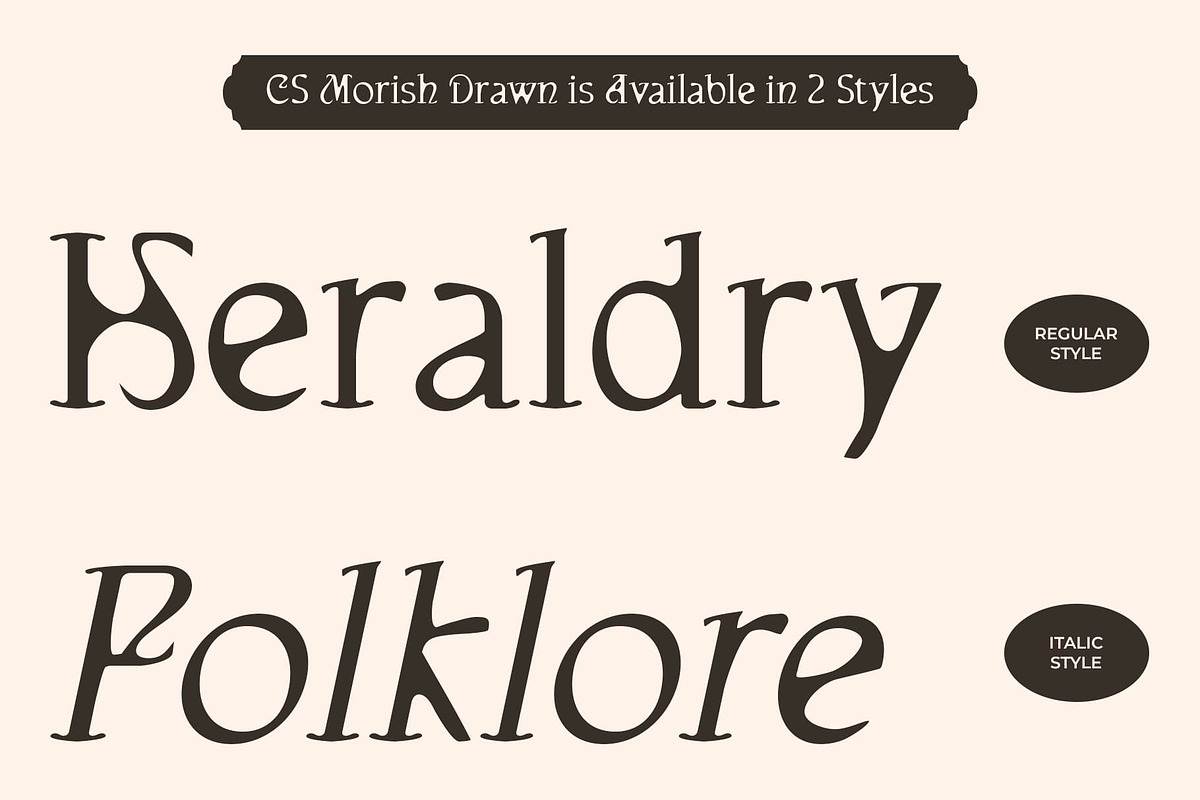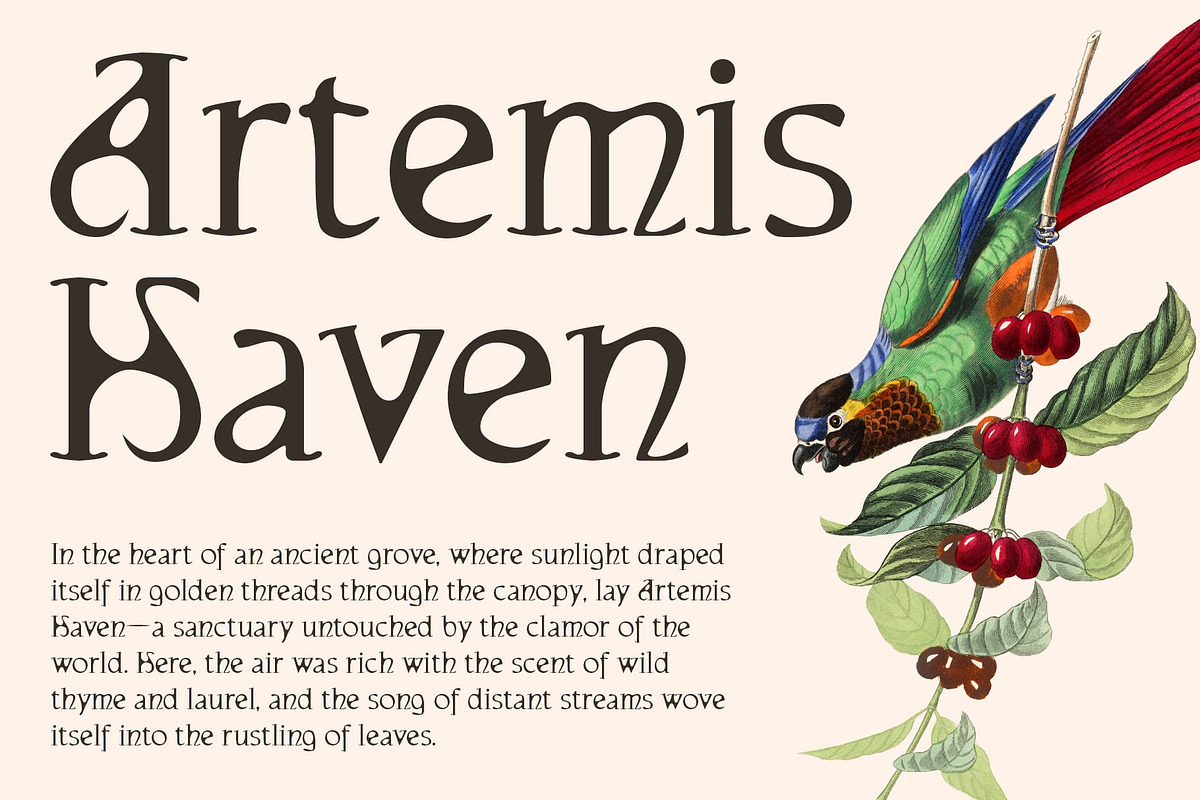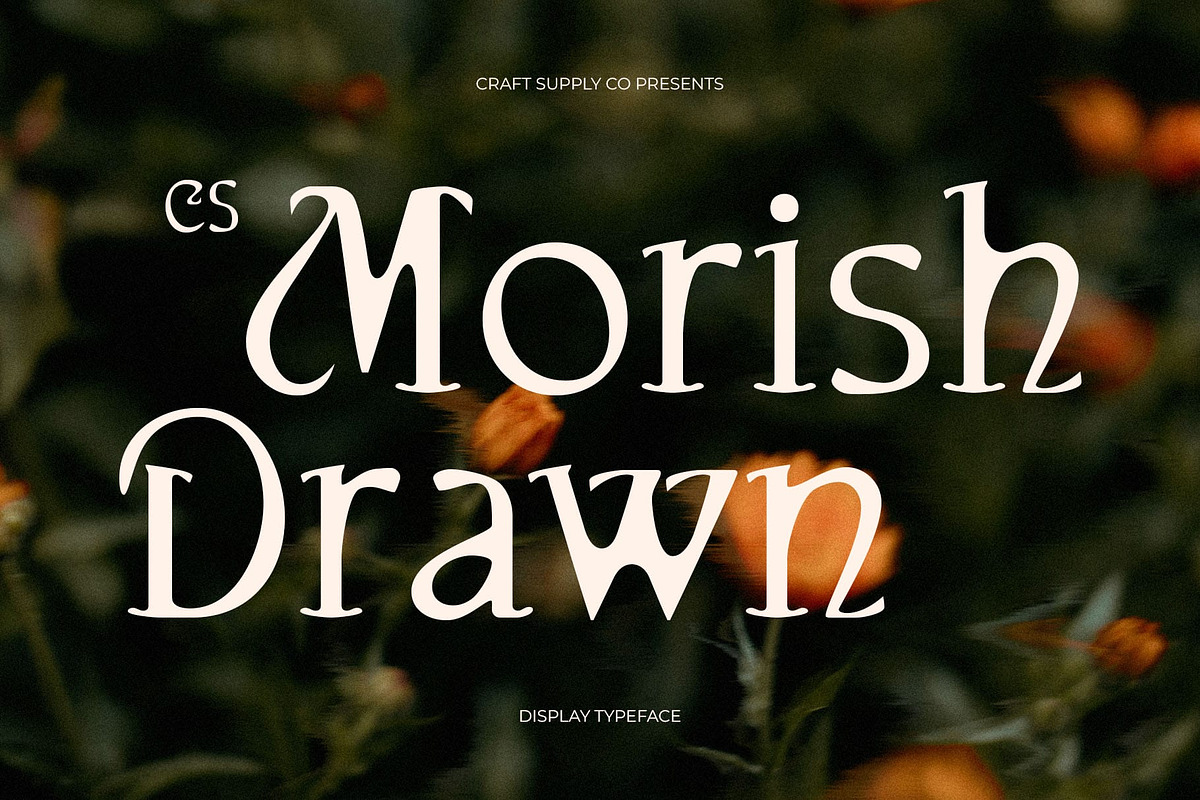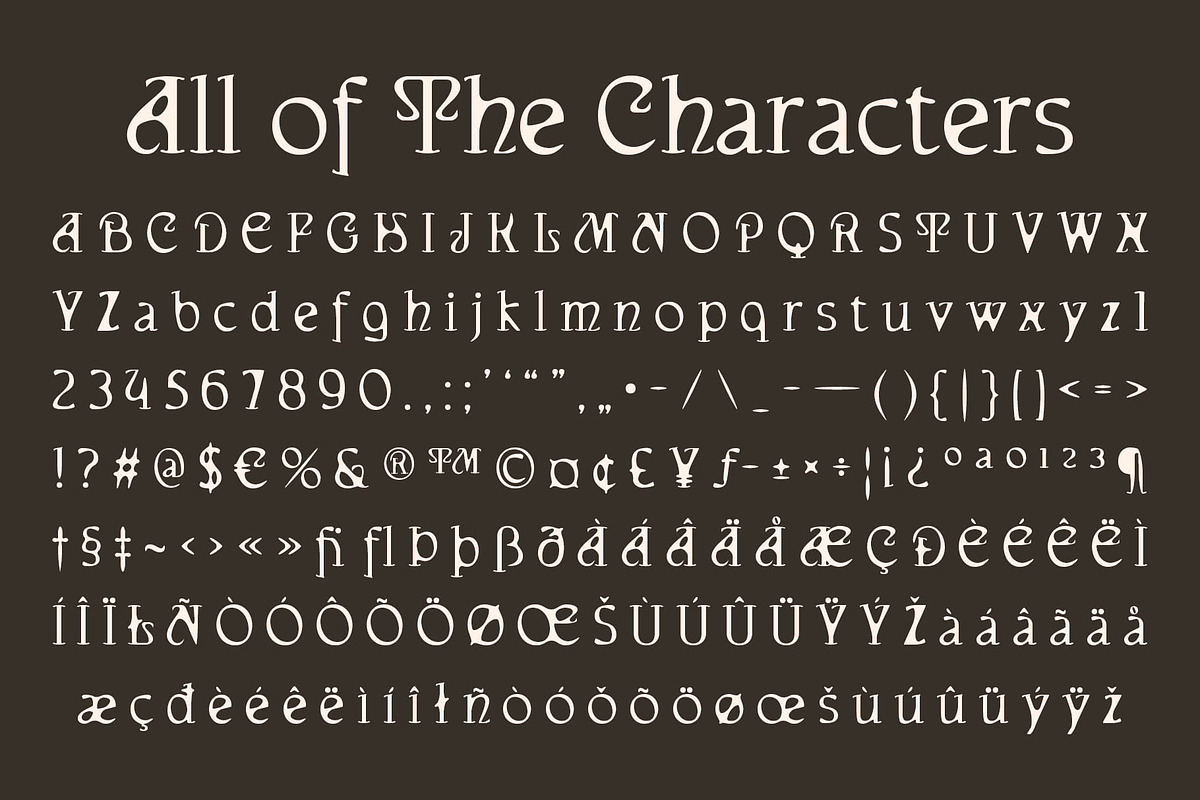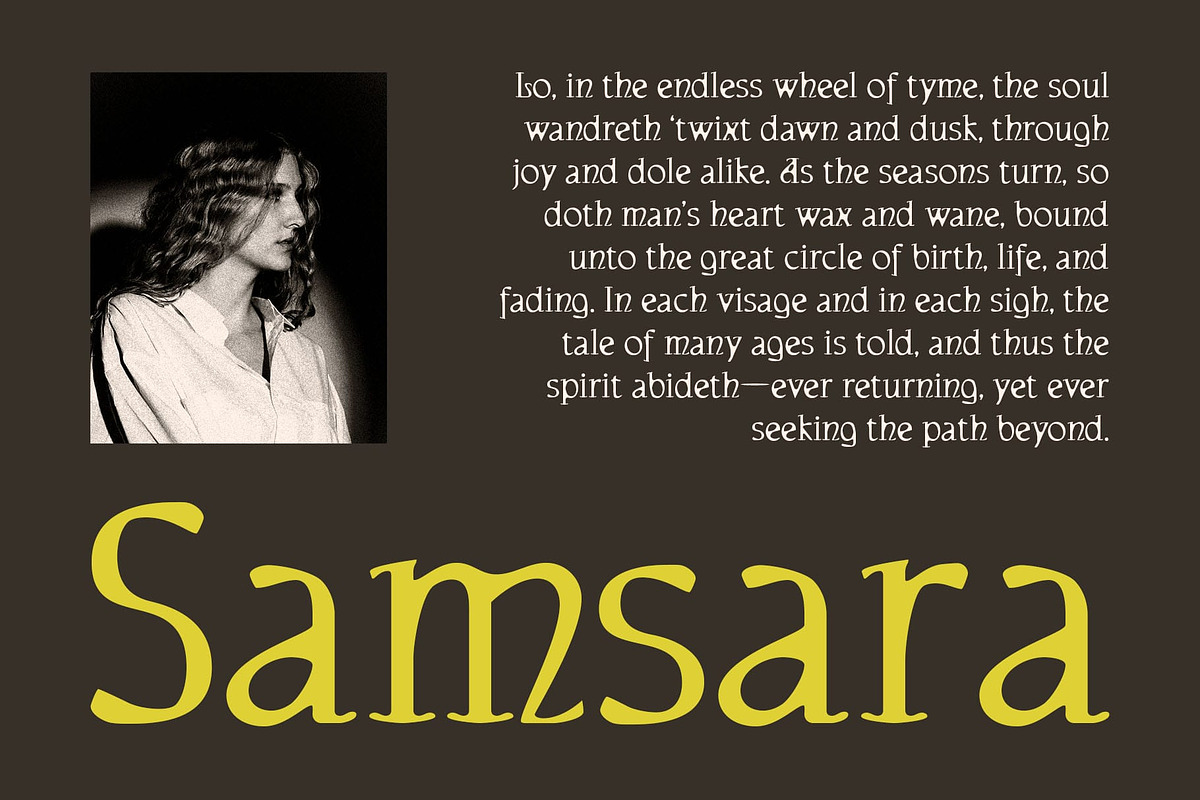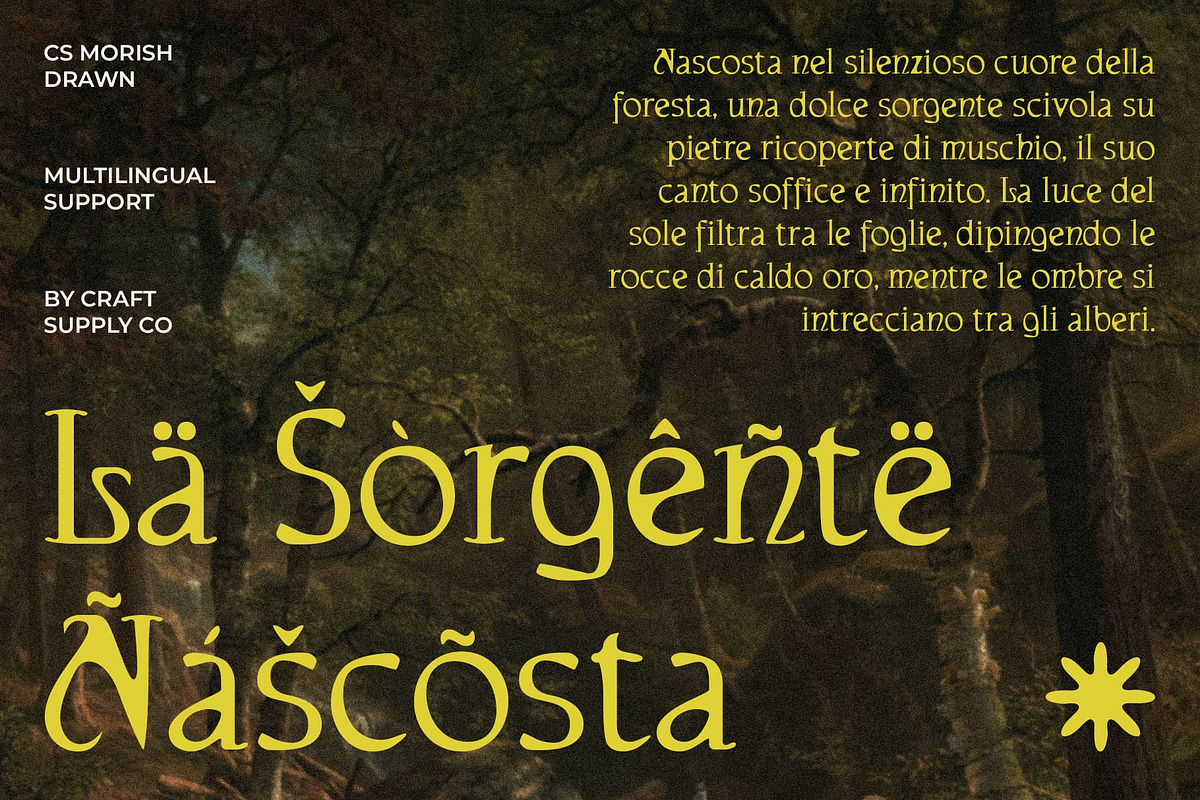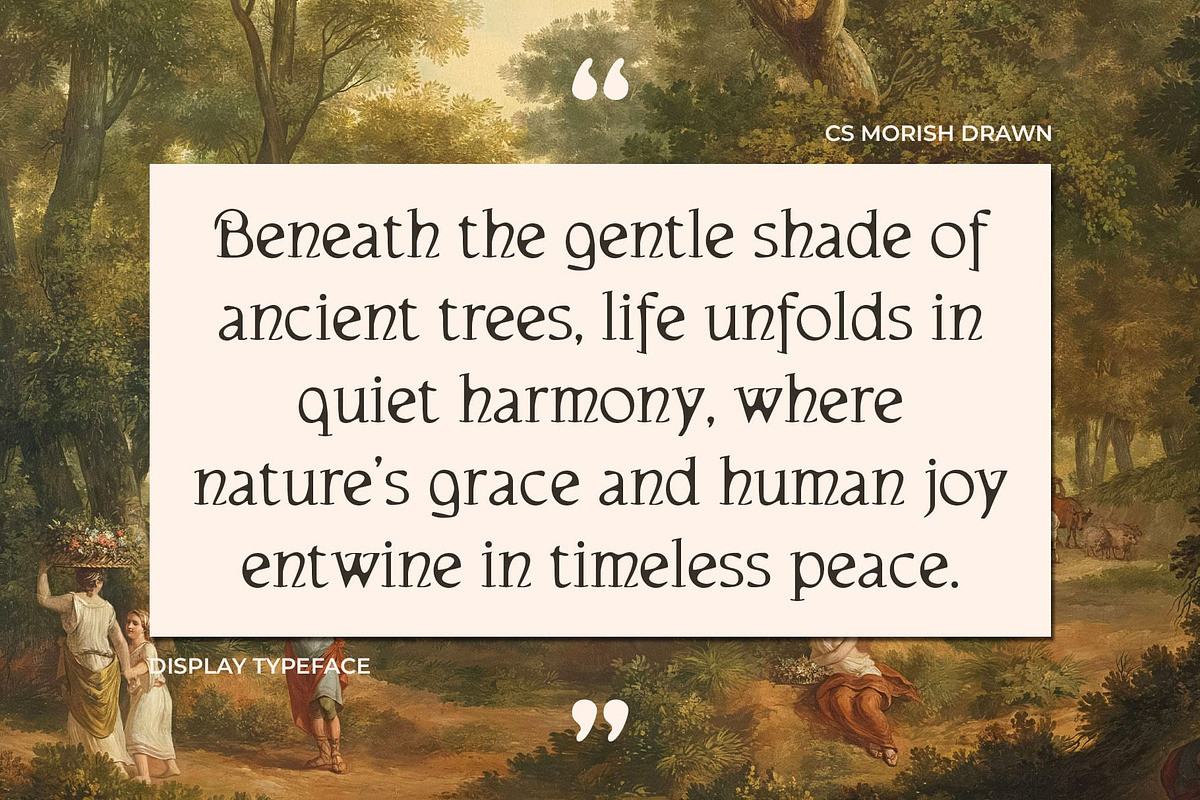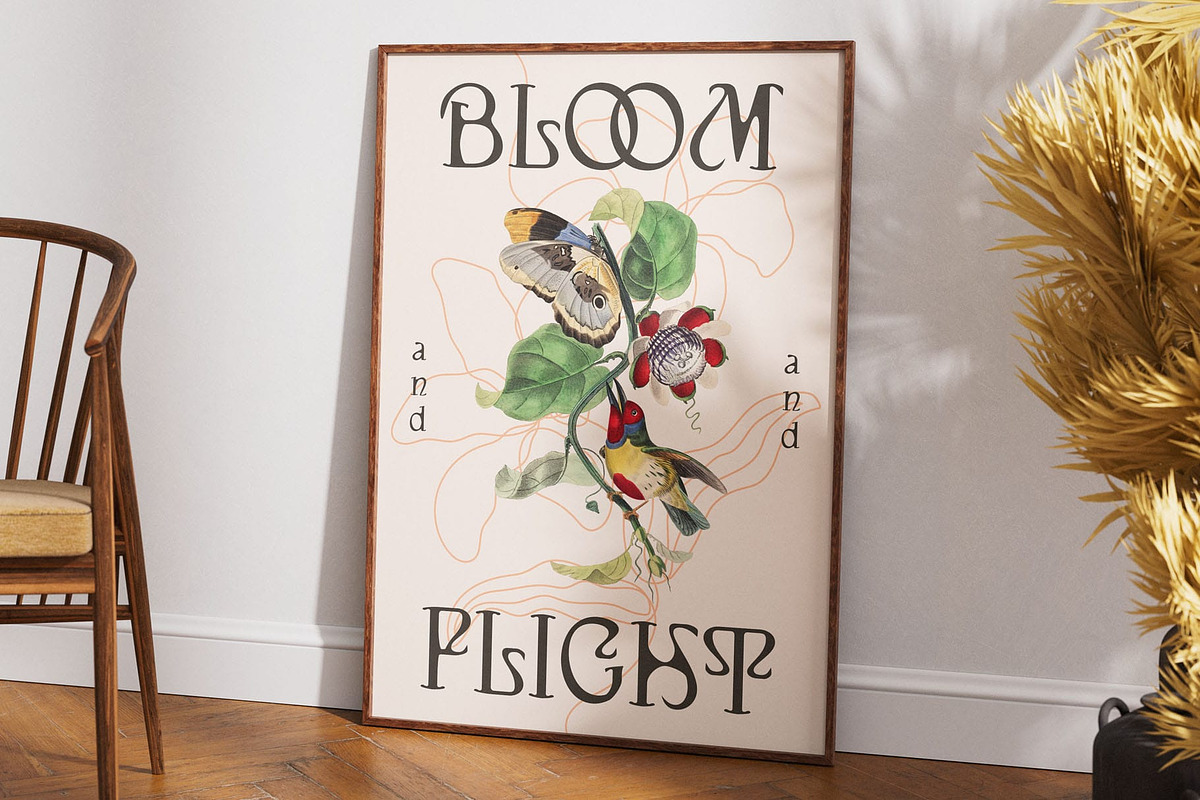
CS Morish Drawn
CS Morish Drawn – Classic Display Serif with Uncial Elegance
Distinctive Uncial Style CS Morish Drawn features a unique uncial-inspired design, blending traditional serif curves with a refined, elegant touch. Its classic letterforms convey timeless sophistication while standing out as a display font.
Artistic Drawn Effect Enhanced with a drawn effect, the font exudes a handmade, textured quality. This artistic detail adds warmth and character, transforming each letter into a visually engaging element that captures attention. Its combination of classic forms and handcrafted artistry ensures every project gains a memorable, refined, and creative appeal.
Classic Charm Meets Creativity Striking a balance between historic charm and creative expression, this creative and unique font is ideal for projects that seek both elegance and originality. It conveys prestige and artistry, perfect for luxury branding or standout typographic compositions.
Versatile Applications From book titles and posters to premium branding and creative projects, this artistic and handmade font adapts seamlessly. Its distinctive uncial-inspired shapes paired with the drawn effect make it a versatile choice for designers aiming for both classic sophistication and artistic flair.
Elegant Presence in Every Design With its harmonious curves and low-contrast detailing, this decorative and expressive font maintains elegance and readability across various display uses. The combination of classic form and handcrafted texture ensures a unique, memorable impression in every project.